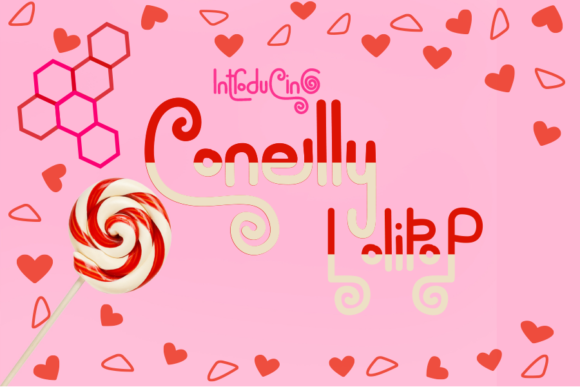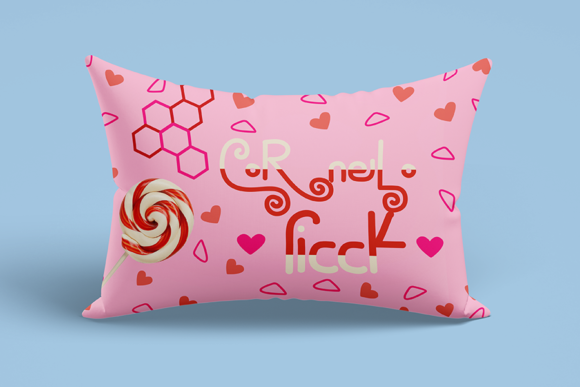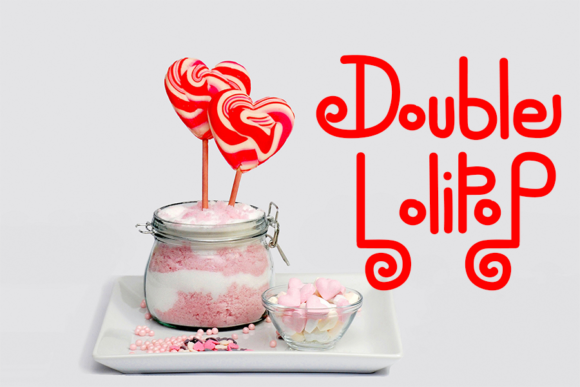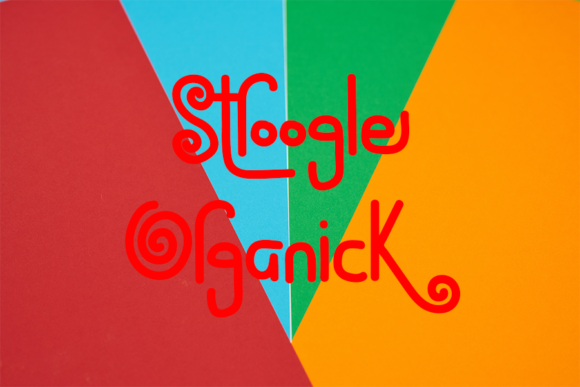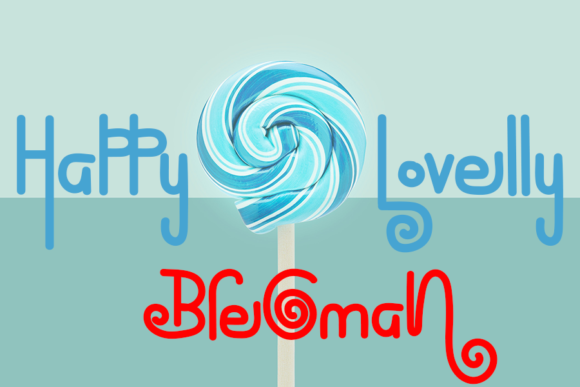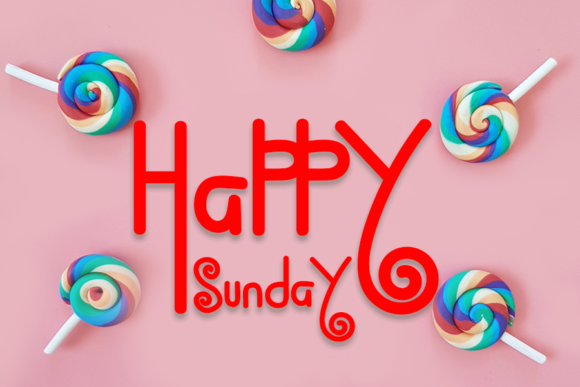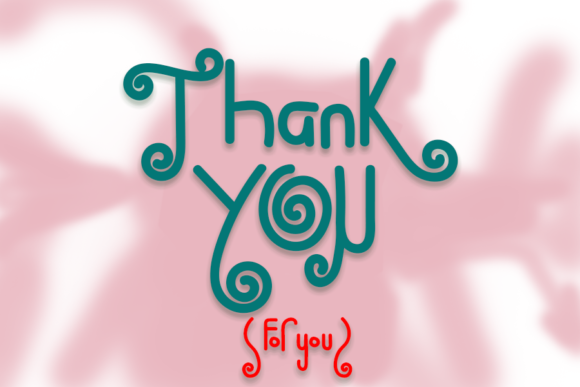
Conelly LolipoP Font
About Conelly LolipoP Font
Conelly LollipoP embodies fun, quirkiness and authenticity. This enchanting handwritten font will turn any creative idea into a true standout.